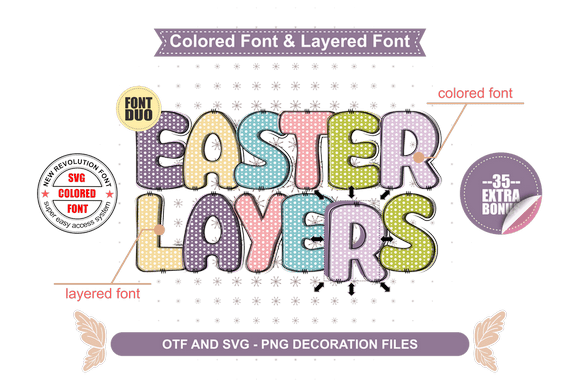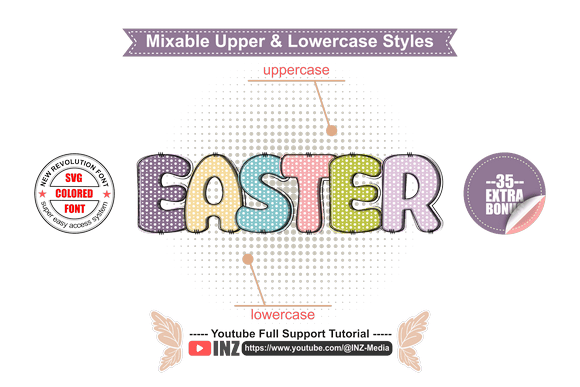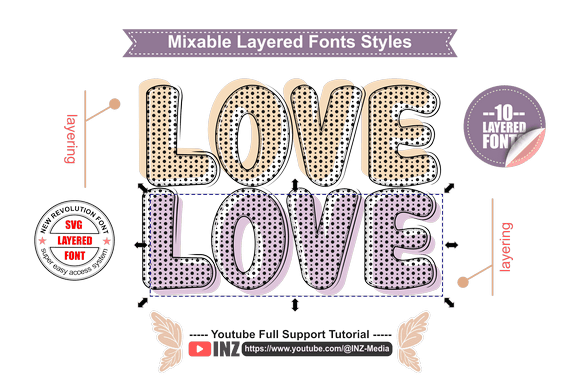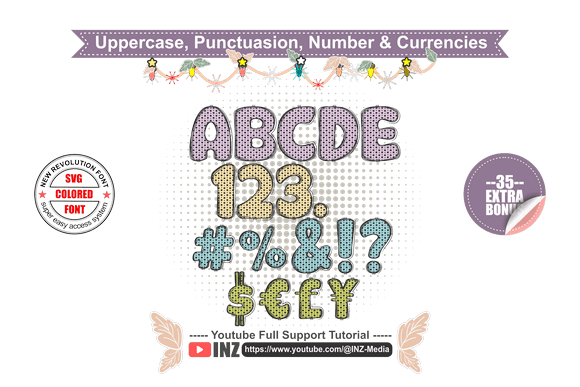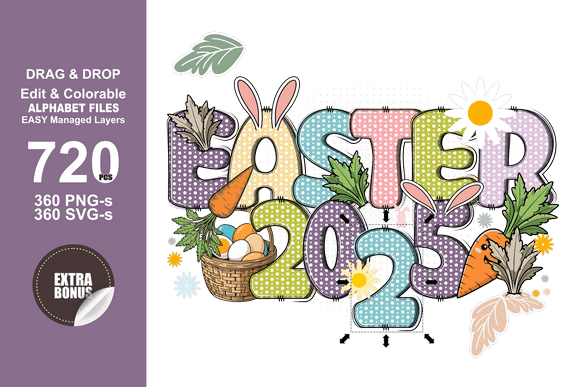
Easter Bundle Font: Unleash the Vibrant Energy of Your Creativity
Are you tired of using the same old fonts for your designs? Look no further! Introducing the Easter Bundle Font, a game-changing typeface that will add a splash of whimsy and chromatic charm to your work. This Colored And Layered Font is crafted to mesmerize and captivate, making it the perfect partner for striking headlines, unforgettable logos, and irresistible social media graphics.
The Perfect Partner for Your Designs
The Easter font is designed to illuminate your work, whether your design ethos is bold, vigorous, tender, or exquisite. With its unique and vivacious style, this font is sure to make your designs stand out from the crowd. The Easter Bundle Font offers a palette bursting with sparkling shades, giving you the freedom to experiment and find the perfect combination to match your brand’s personality.
Key Features of the Easter Bundle Font
- Colored and Layered Font: The Easter font is a Colored And Layered Font, allowing you to customize and experiment with different colors and layers to create a unique look.
- Vibrant Energy: This font is designed to unleash the vibrant energy of your creativity, making it perfect for designs that require a bold and eye-catching approach.
- Perfect for Headlines and Logos: The Easter font is crafted to create striking headlines and unforgettable logos that will leave a lasting impression.
- Social Media Graphics: This font is also perfect for social media graphics, allowing you to create irresistible and engaging content that will capture your audience’s attention.
The Easter Bundle Font is a versatile typeface that offers numerous benefits for designers and crafters. With this font, you can:
- Save Time: The Easter font is easy to use and customize, saving you time and effort in your design process.
- Increase Creativity: The vibrant energy and chromatic charm of this font will inspire you to experiment and try new things, increasing your creativity and productivity.
- Stand Out: The Easter font is unique and eye-catching, allowing you to create designs that stand out from the crowd and leave a lasting impression.
How to Use the Easter Bundle Font
Using the Easter Bundle Font is easy and straightforward. Here are some tips to get you started:
- Experiment with Colors: Try out different color combinations to find the perfect match for your brand’s personality.
- Play with Layers: Experiment with different layers to create a unique and customized look.
- Use it for Headlines and Logos: The Easter font is perfect for creating striking headlines and unforgettable logos.
In conclusion, the Easter Bundle Font is a game-changing typeface that will add a splash of whimsy and chromatic charm to your designs. With its unique and vivacious style, this font is perfect for designers and crafters who want to create striking headlines, unforgettable logos, and irresistible social media graphics. So why wait? Unleash the vibrant energy of your creativity with the Easter Bundle Font and take your designs to the next level!